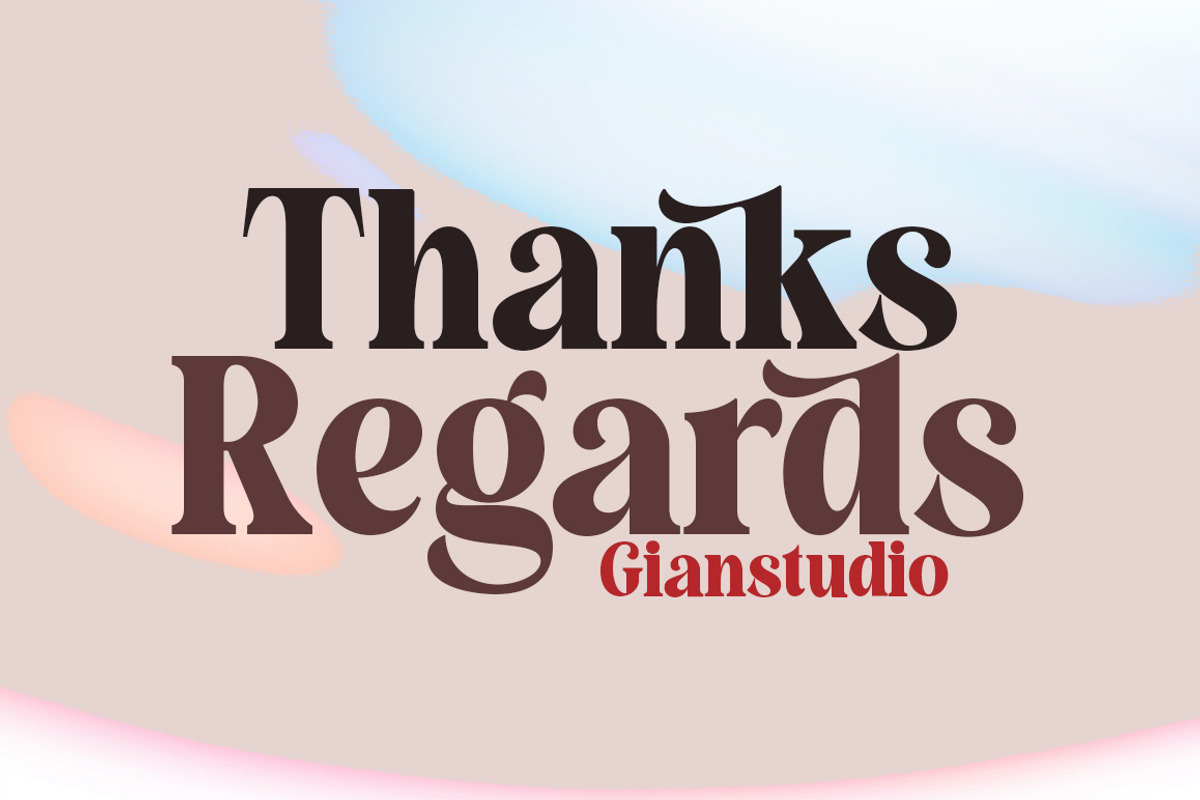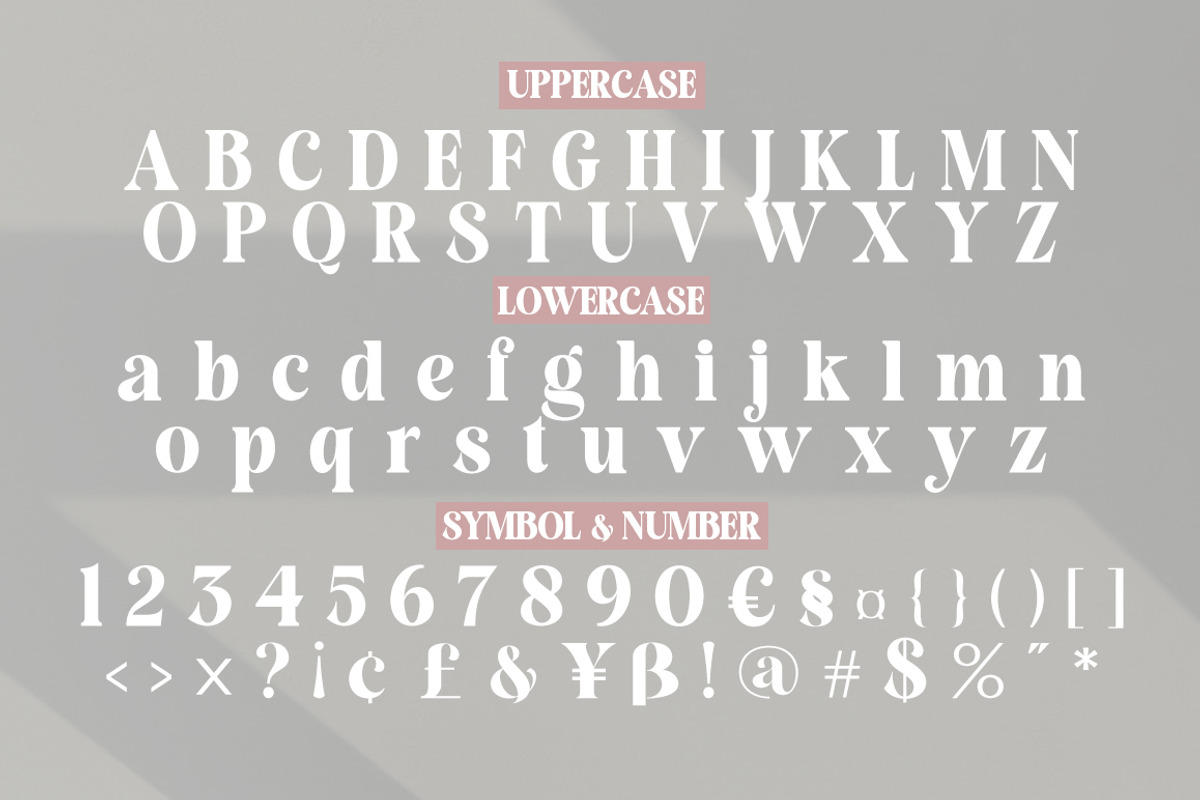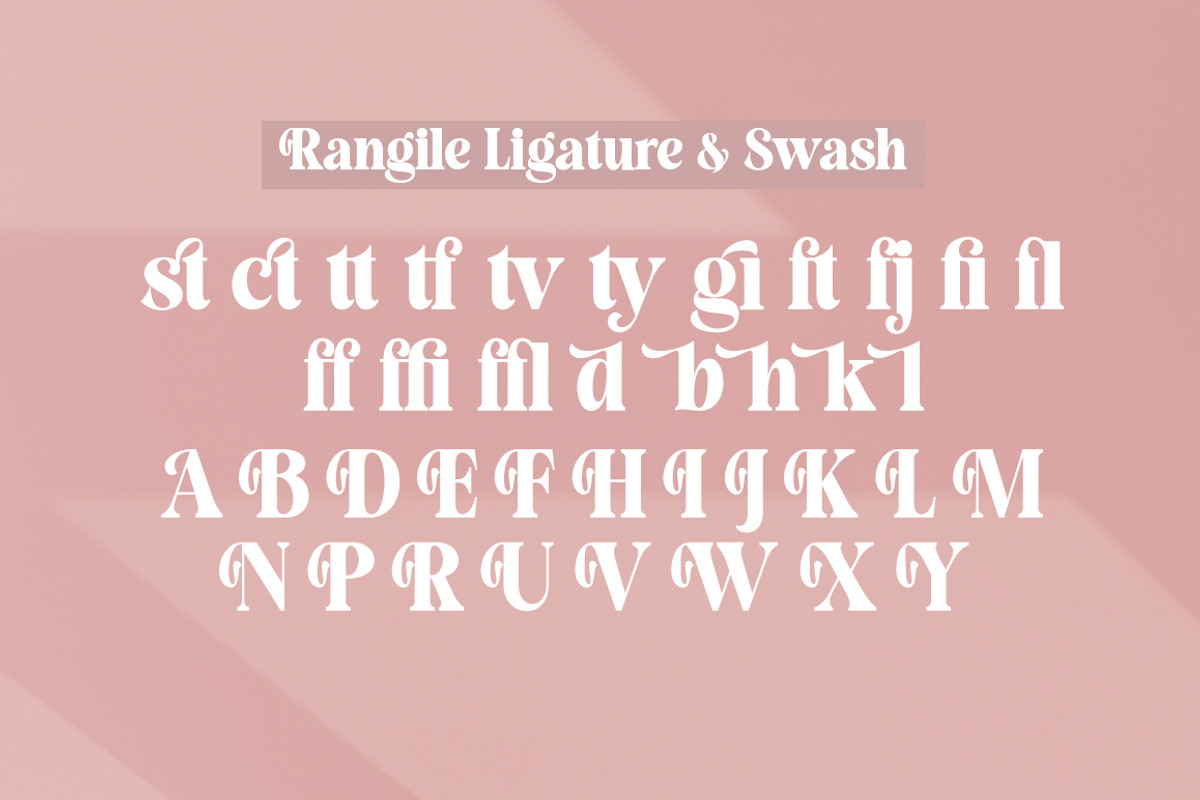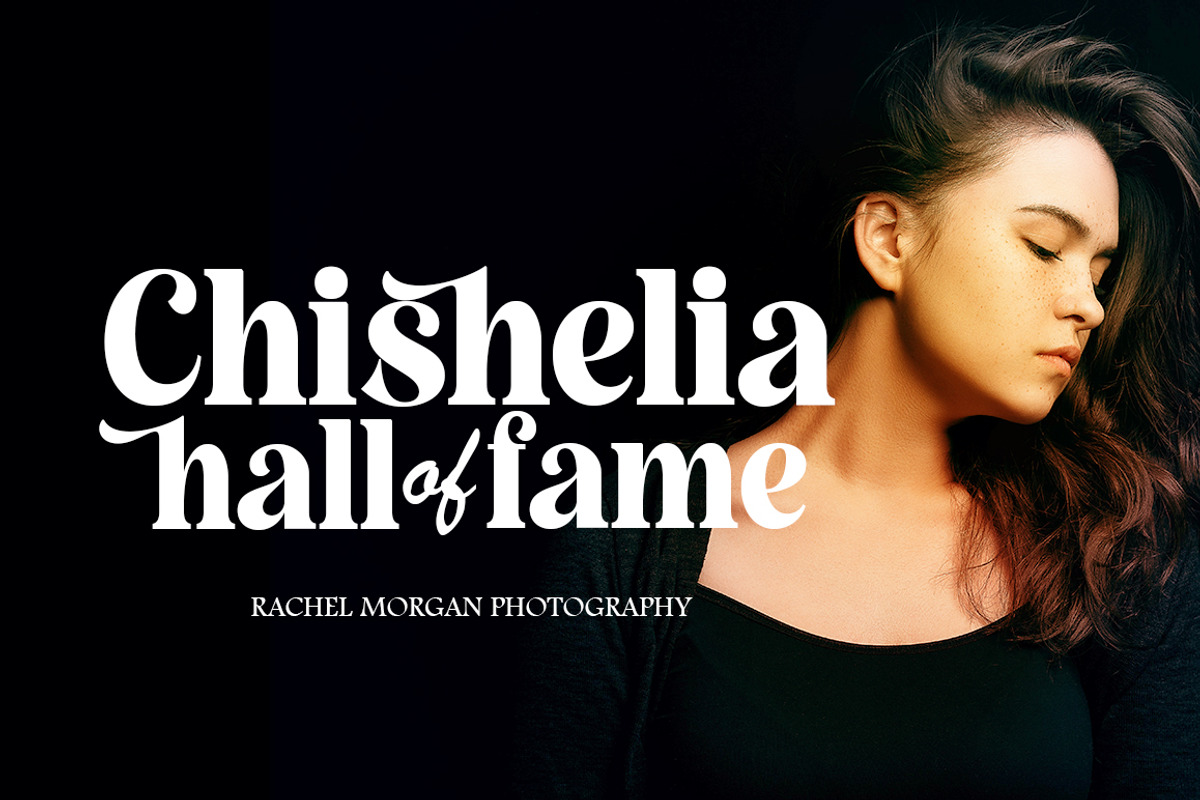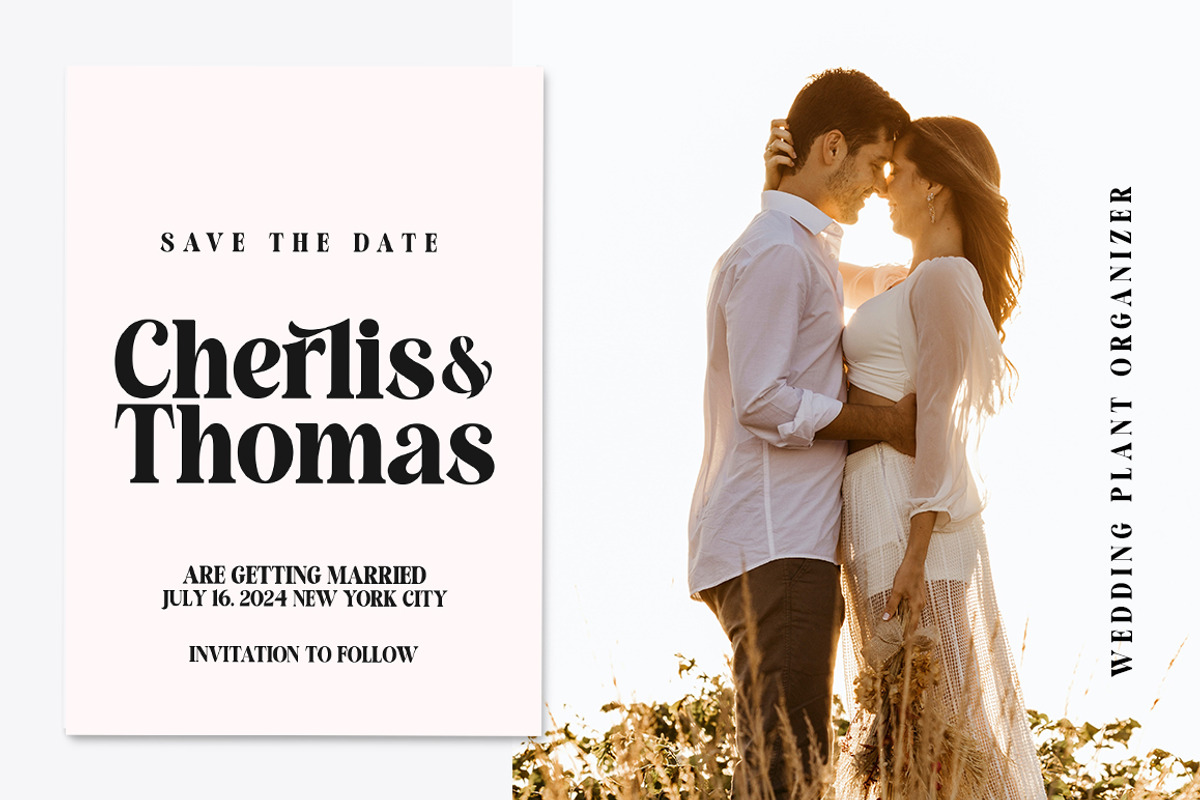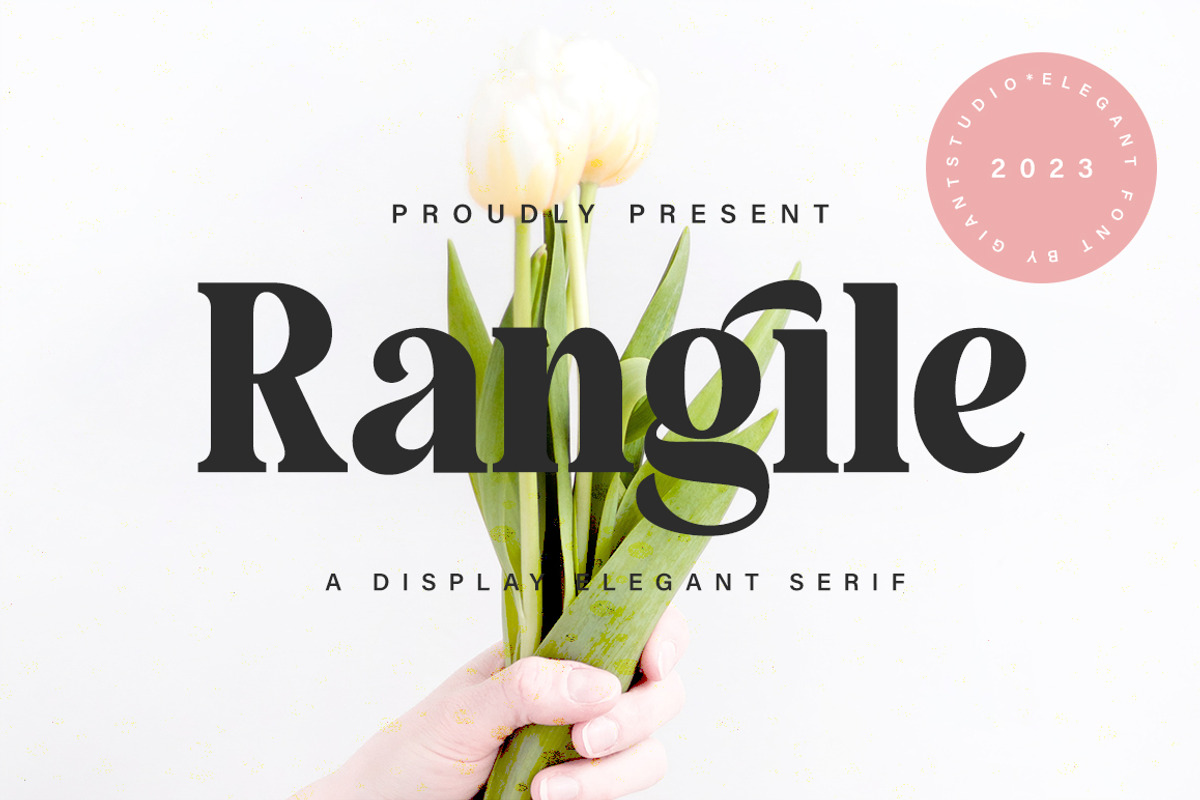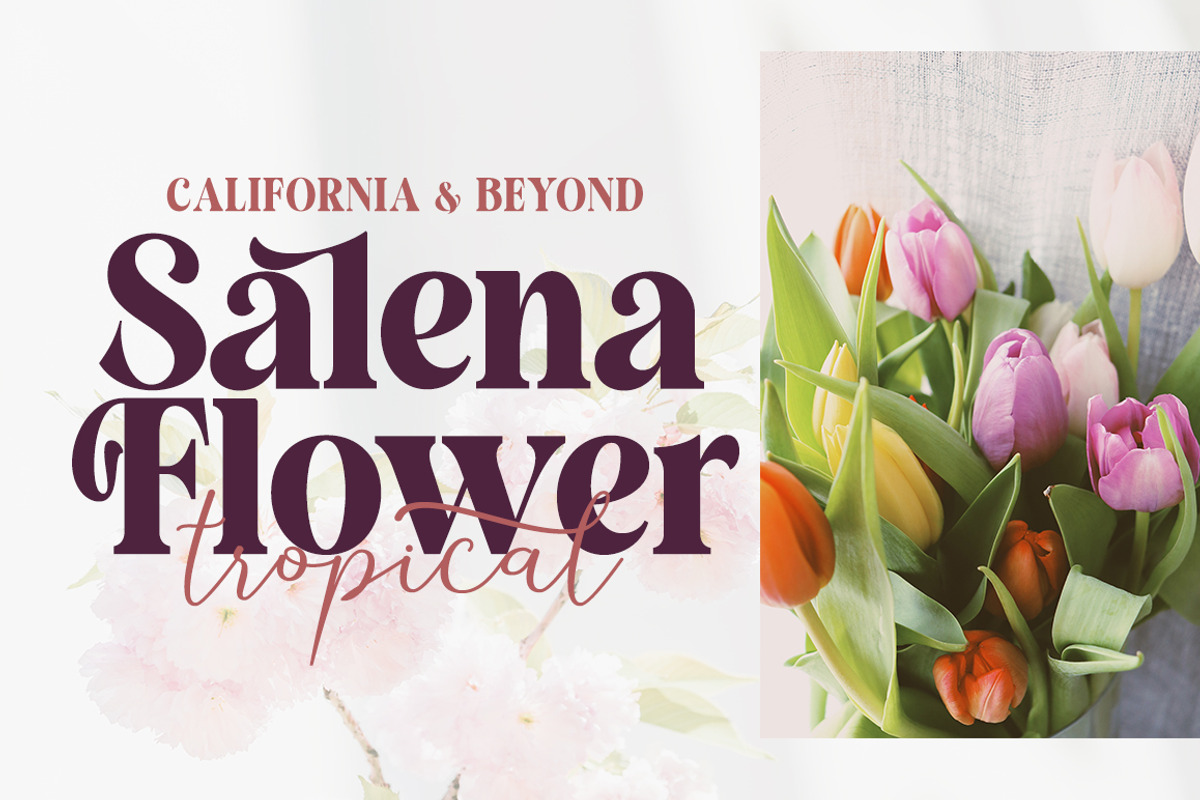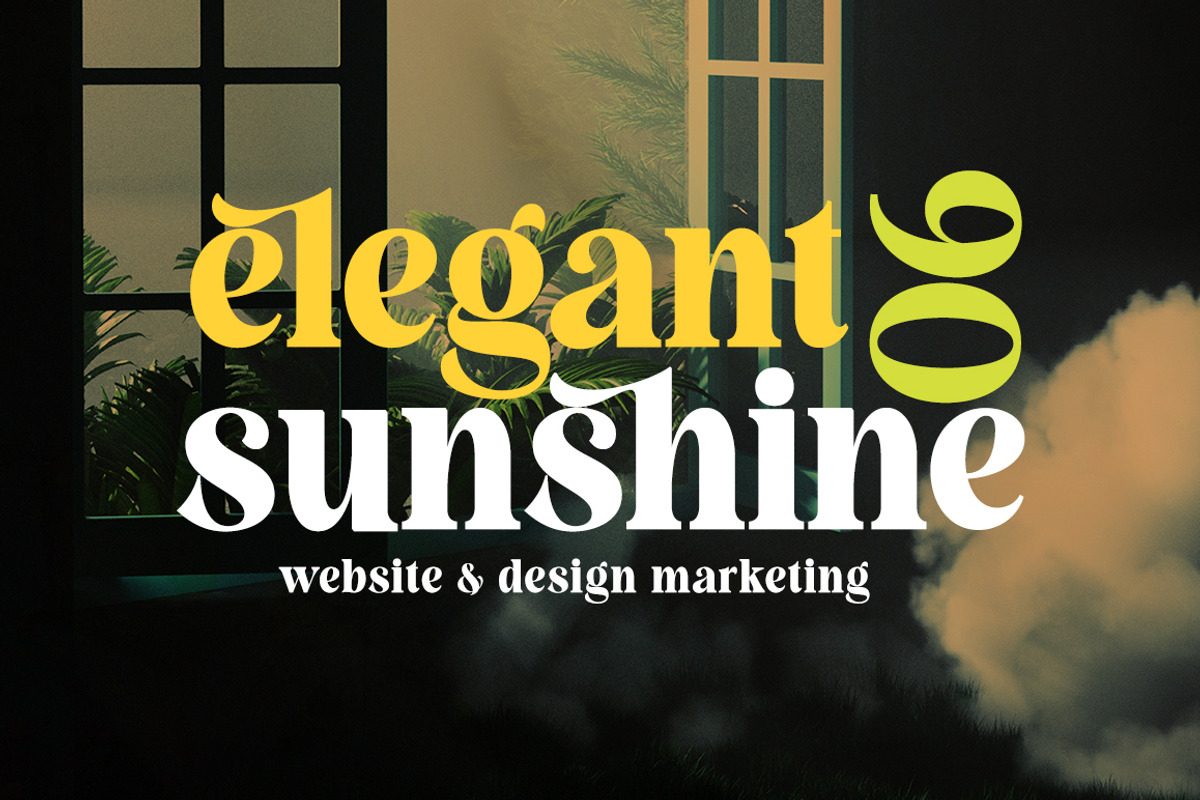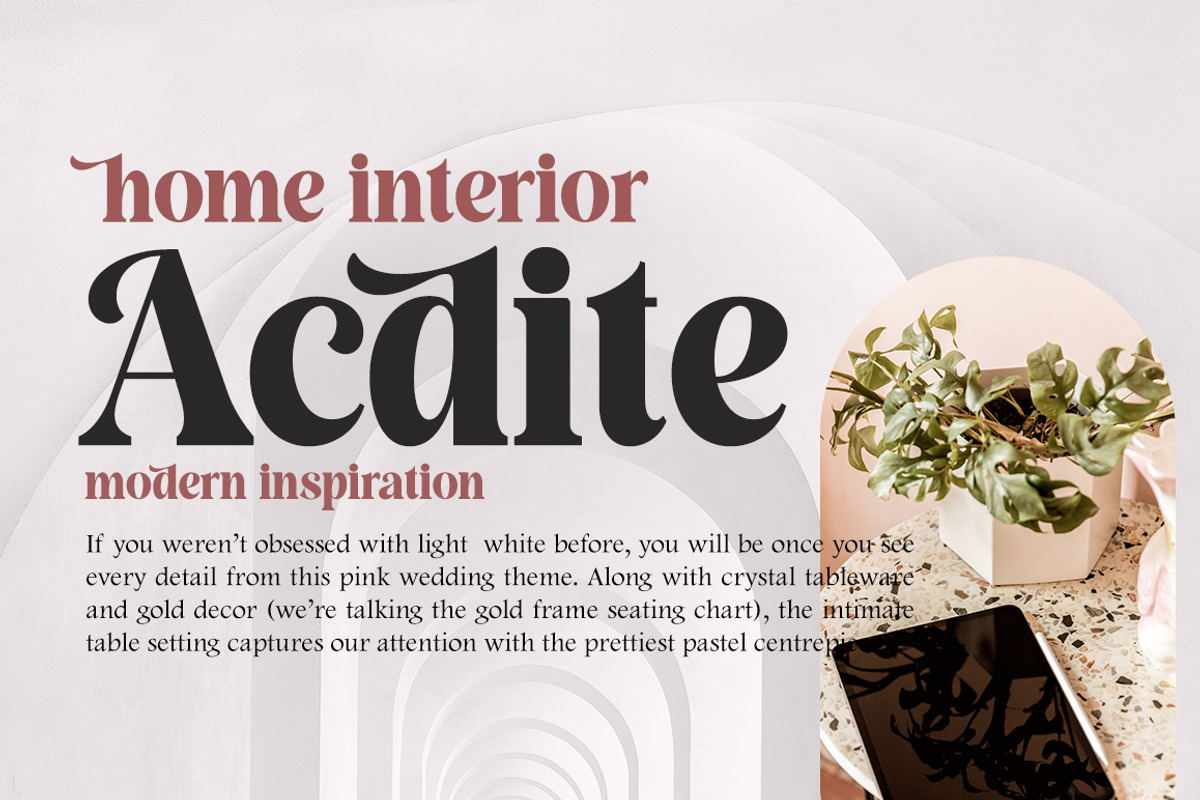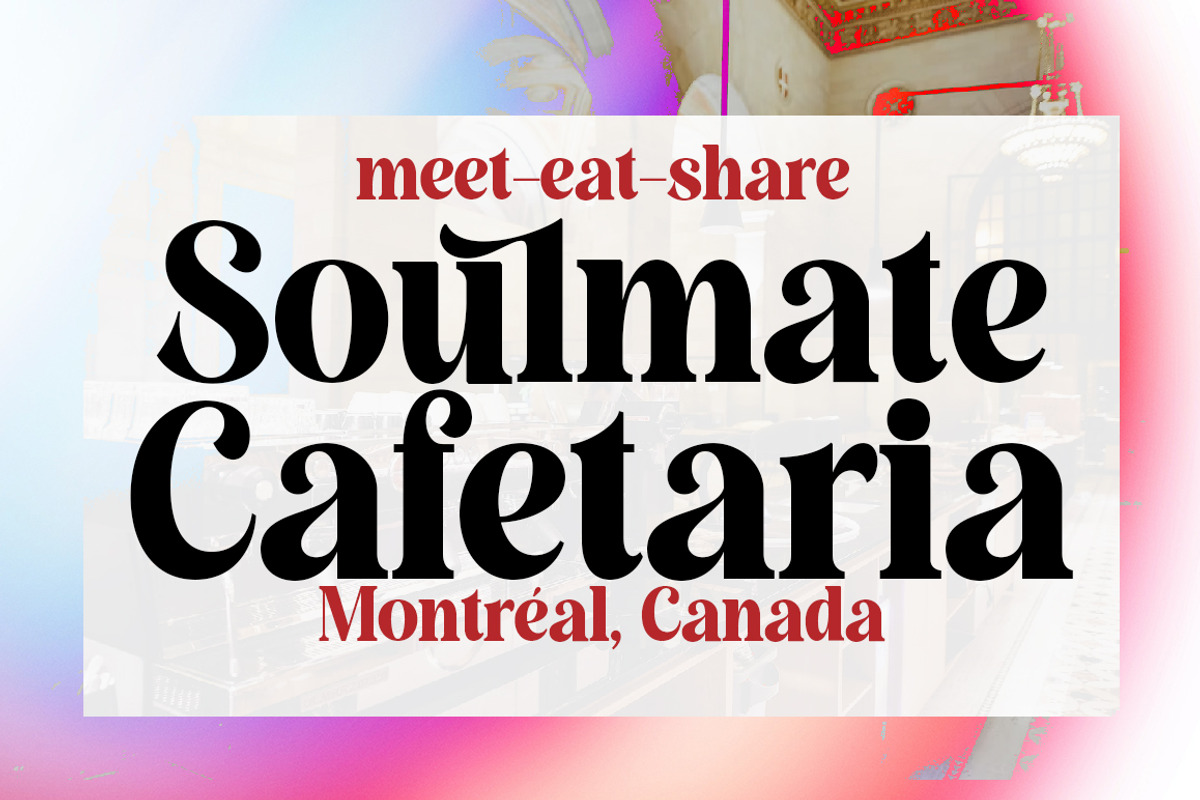
Rangile
Hi Everyone Rangile We are proud to present our new font. The new natural Rangile look with a classy and modern style makes this font look elegant, natural, stylish.
Rangile will be perfect for invitations, logos & branding, photography, advertising, watermarks, social media posts, product packaging, product designs, labels, wedding designs, stationery, special events or anything else needed to create a theme.
Rangile is built with OpenType features and includes initial and final language styles, alternative characters for most lowercase letters, numbers, punctuation marks, alternatives, ligatures, and also supports other languages.